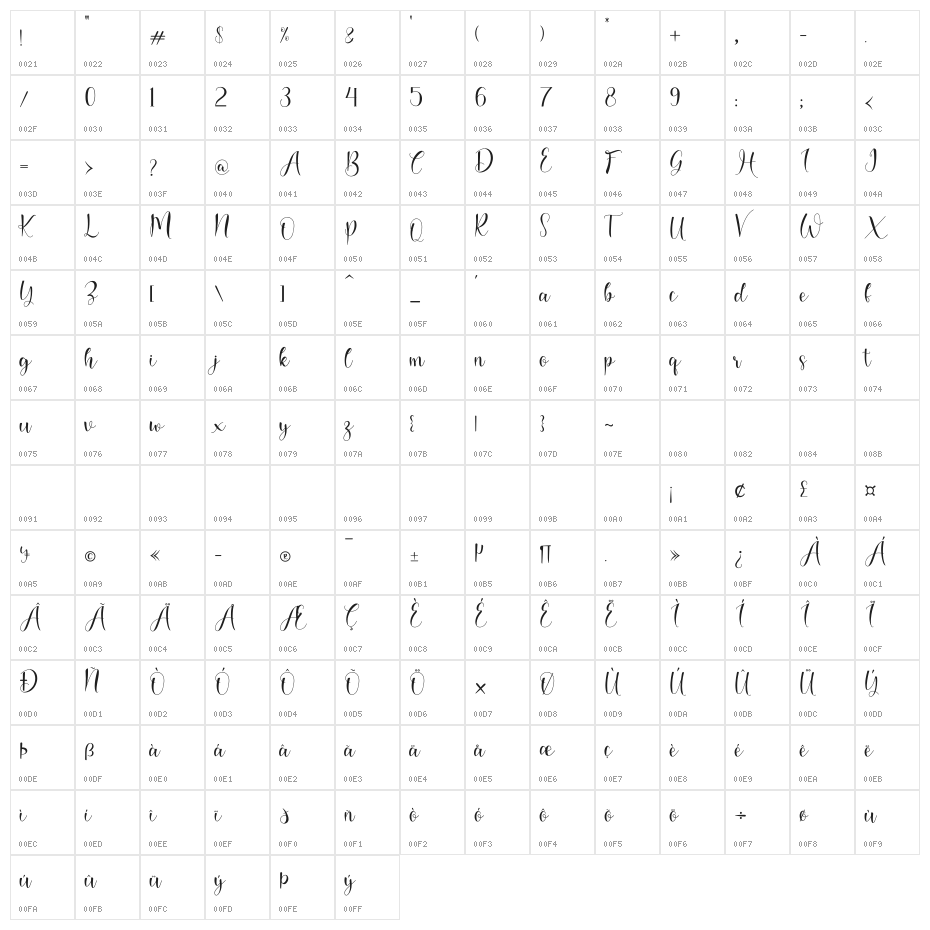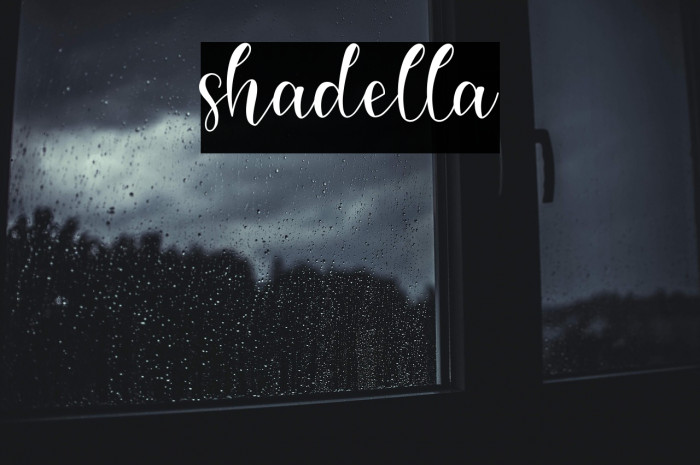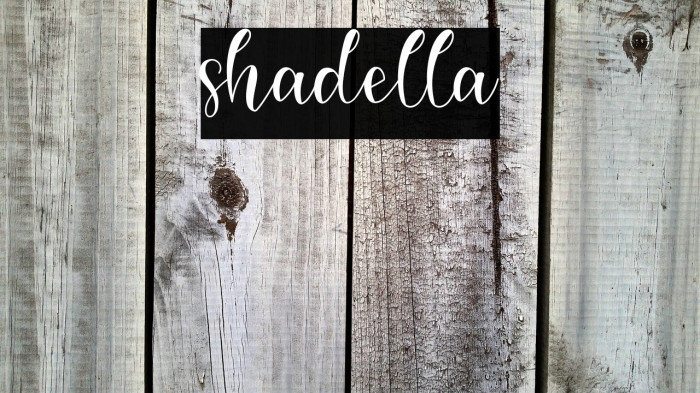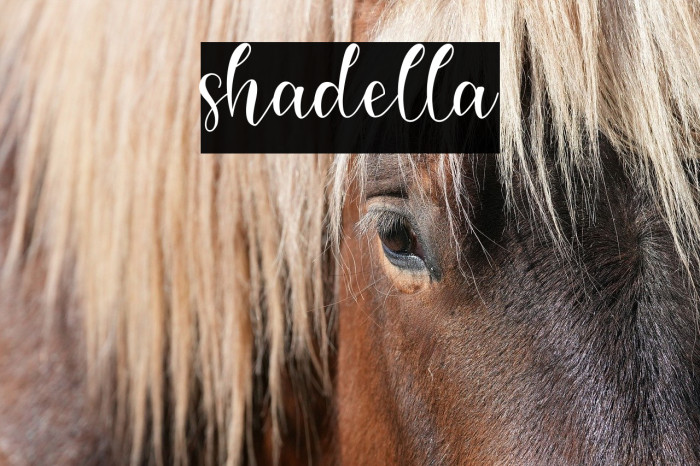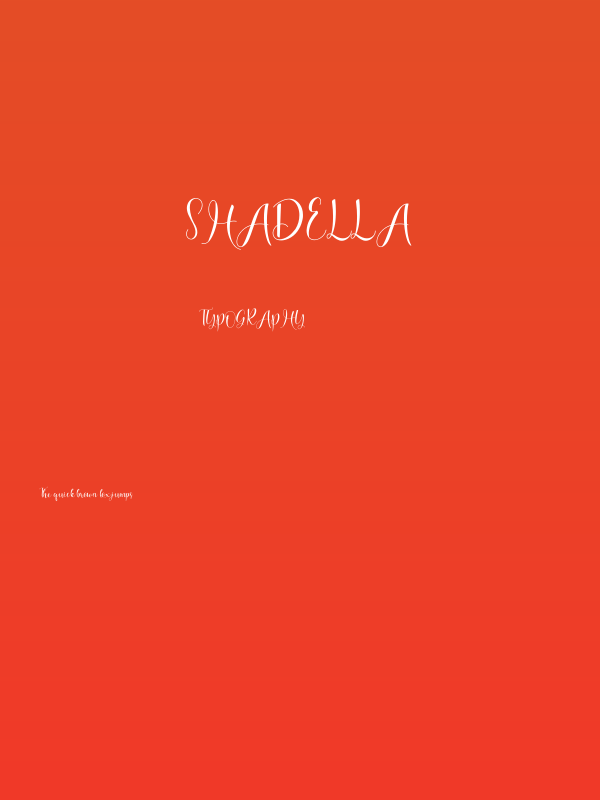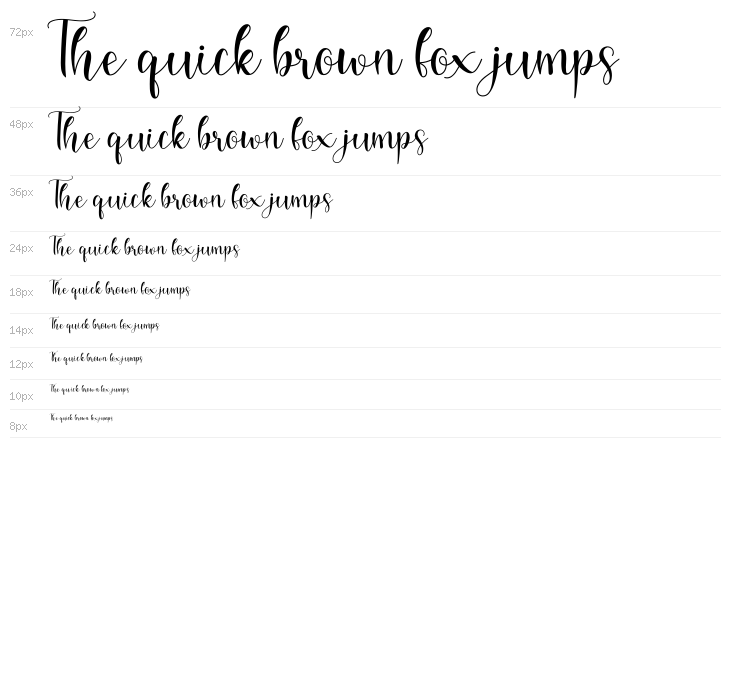
shadella Font
shadella Description
This elegant script font features flowing, cursive letters with a sophisticated flair. The uppercase letters are characterized by their sweeping curves and intricate loops, giving them a graceful and artistic appearance. The lowercase letters maintain a consistent style, with smooth connections and a fluid motion that enhances readability. Numbers and special characters are designed to complement the overall aesthetic, maintaining the same elegant and decorative style. This font exudes a sense of luxury and refinement, making it ideal for projects that require a touch of class and elegance.
An elegant script font with flowing, cursive letters and a sophisticated flair from Regular fonts.
- Proposed Projects: Ideal for wedding invitations, luxury branding, elegant stationery, and artistic designs.
- Overall Style: Elegant, Decorative
- Use Case: Logos, Invitations, Decorative text